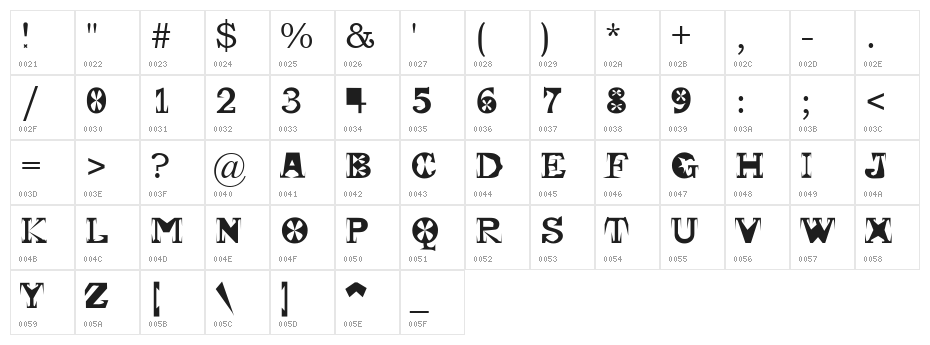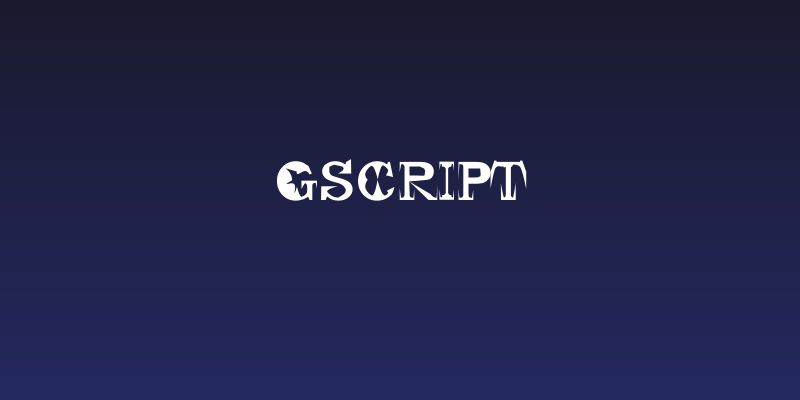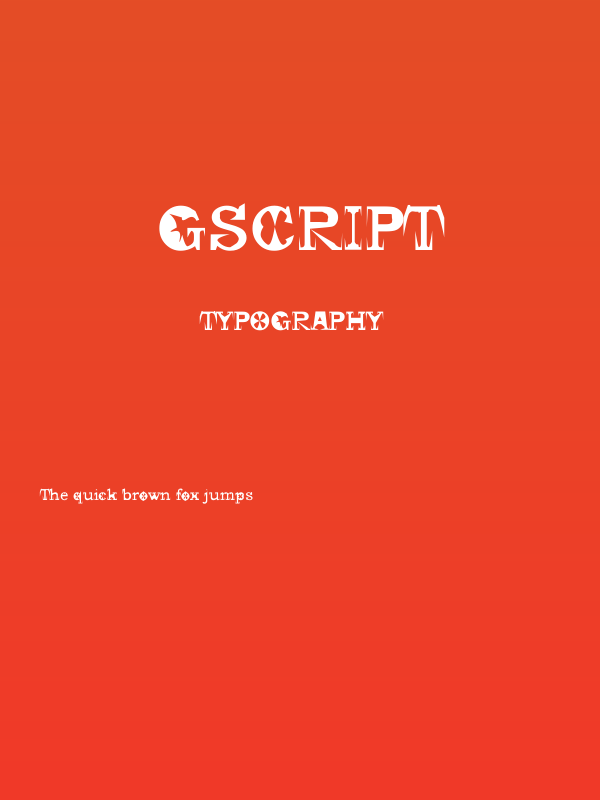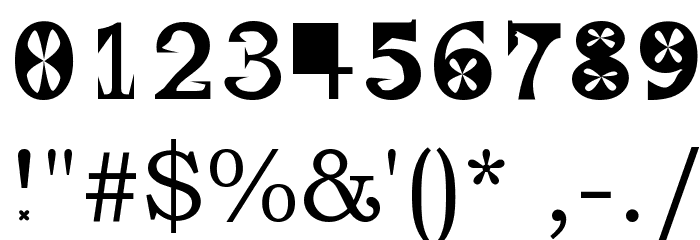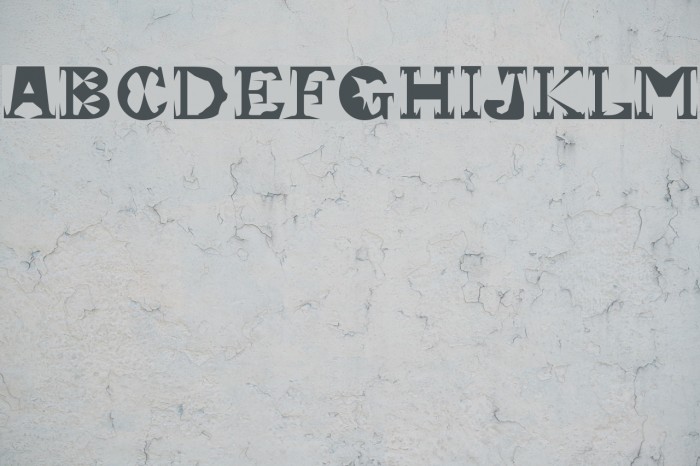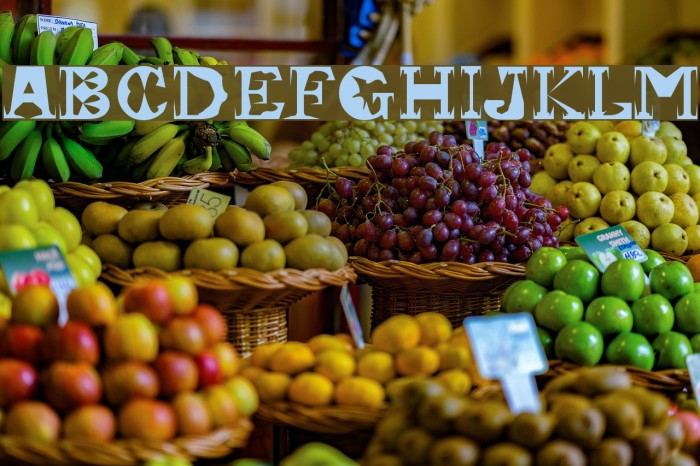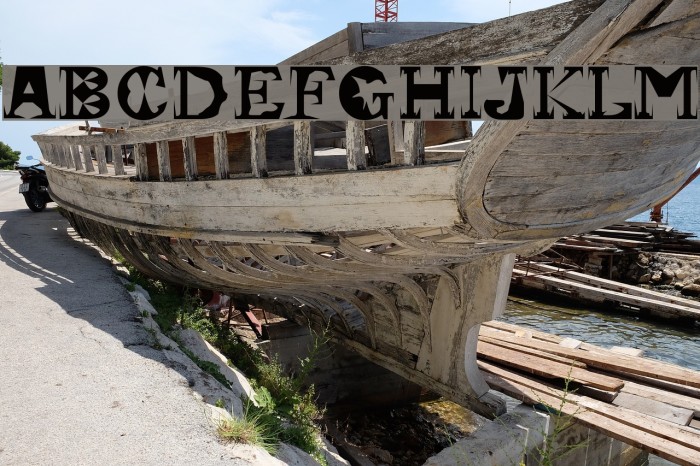
Gscript Font
Gscript Description
This font is a bold and decorative typeface with a unique and artistic flair. Each character is designed with intricate cut-out patterns, giving it a playful and eye-catching appearance. The uppercase letters are particularly striking, featuring bold strokes and geometric shapes that create a sense of movement and energy. The lowercase letters maintain the same decorative style, ensuring consistency throughout the typeface. Numbers and special characters are equally stylized, making this font suitable for creative and dynamic design projects. The overall look is both modern and vintage, offering versatility for various applications.